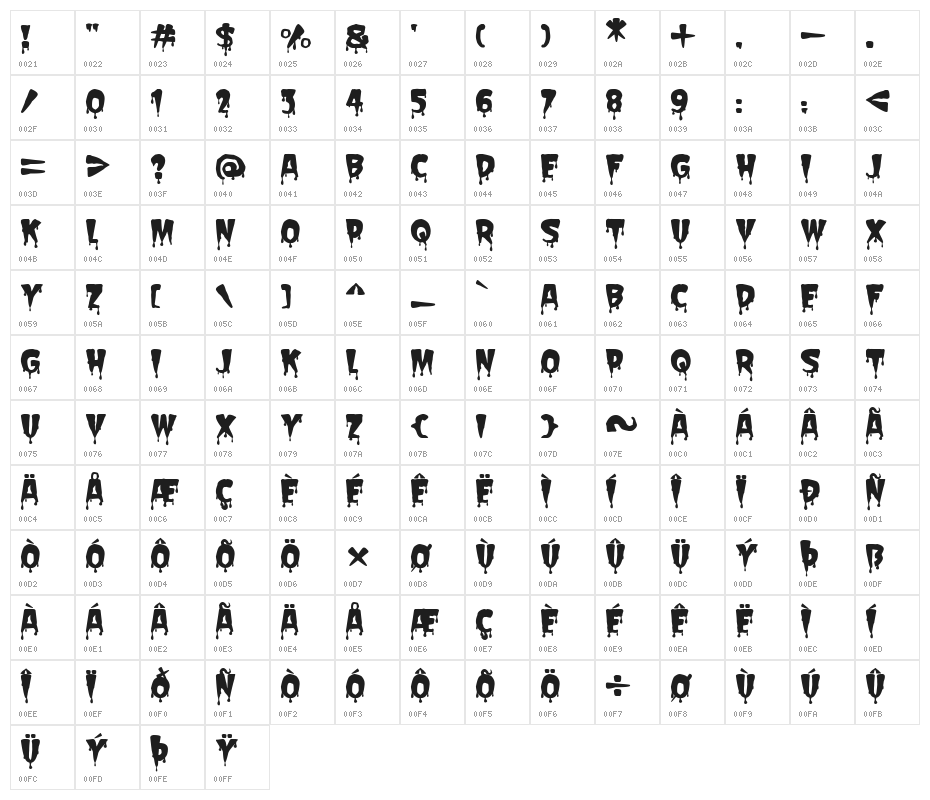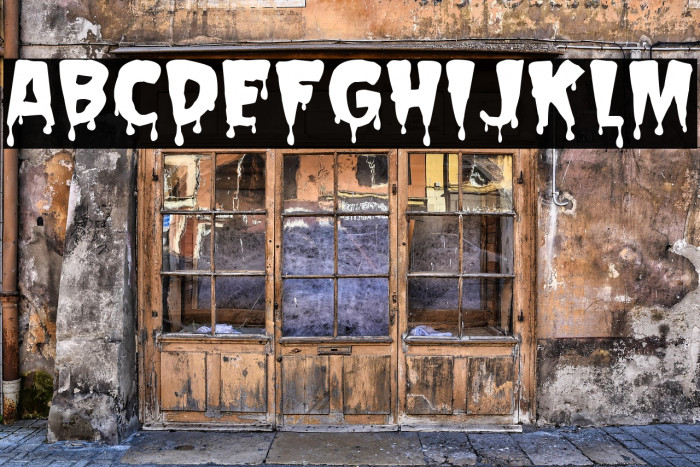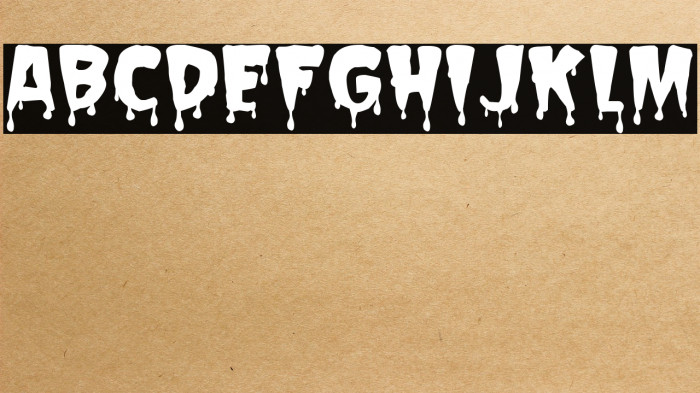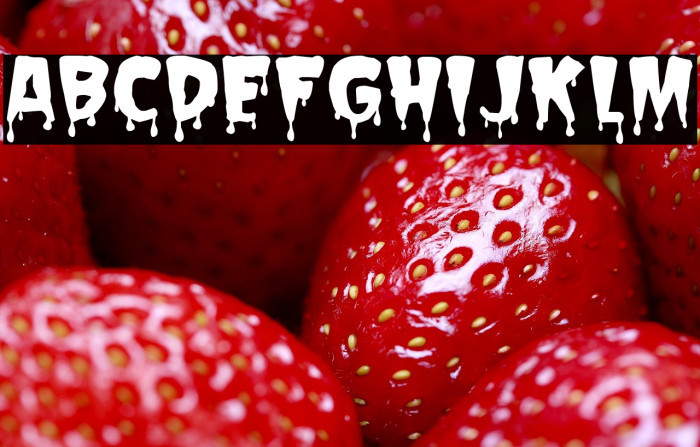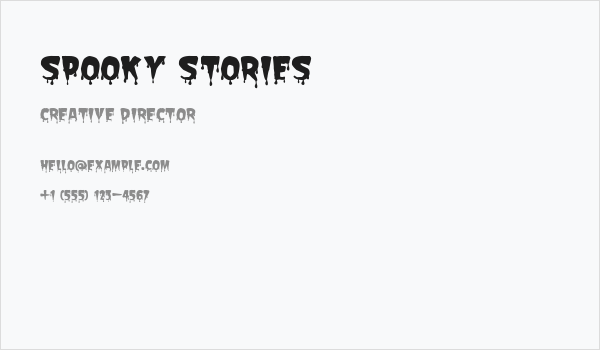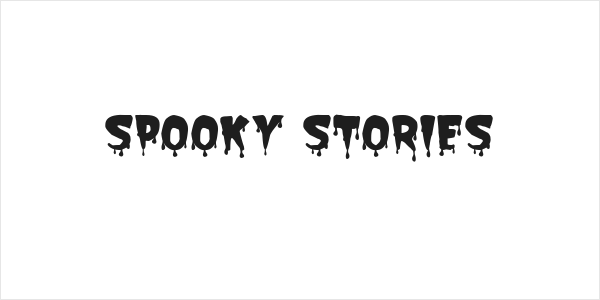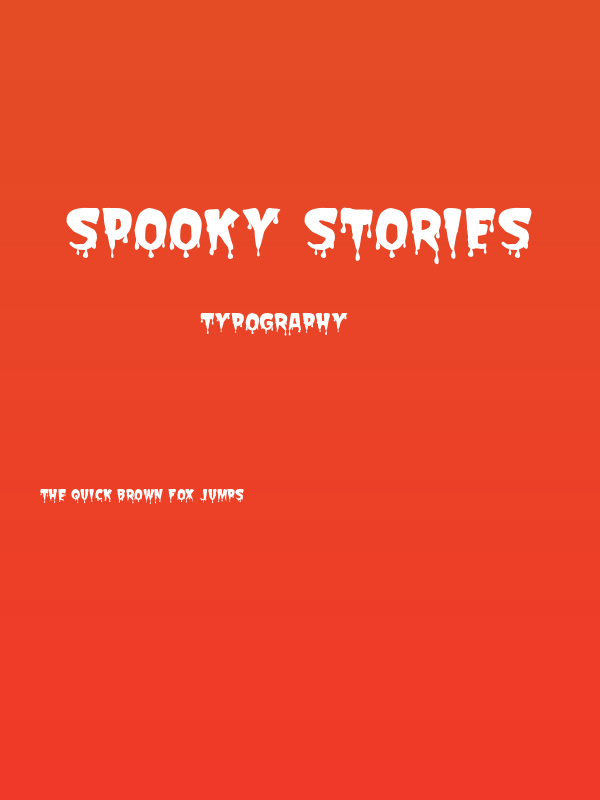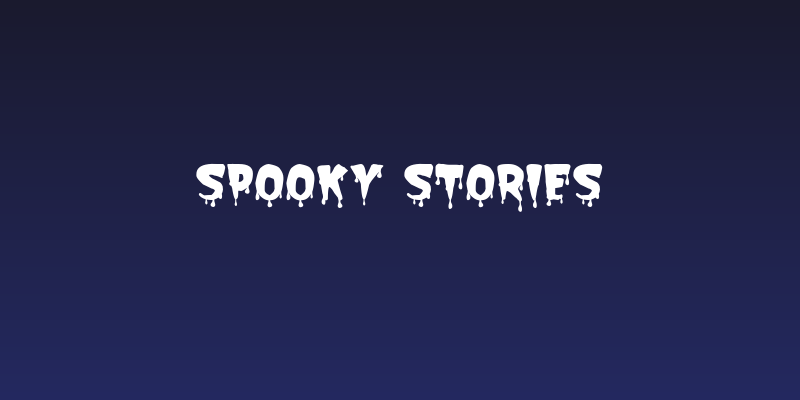
Spooky Stories Font
Spooky Stories Description
This font exudes a chilling and eerie vibe, perfect for Halloween or horror-themed projects. Each character appears to be dripping, reminiscent of melting wax or blood, enhancing its spooky aesthetic. The bold, irregular strokes give it a hand-drawn feel, while the uneven baseline adds to its unsettling charm. The uppercase and lowercase letters maintain a consistent style, with numbers and special characters following suit. This font is designed to grab attention and evoke a sense of mystery and suspense.
Proposed ProjectsIdeal for Halloween invitations, horror movie posters, haunted house flyers, and spooky-themed merchandise.